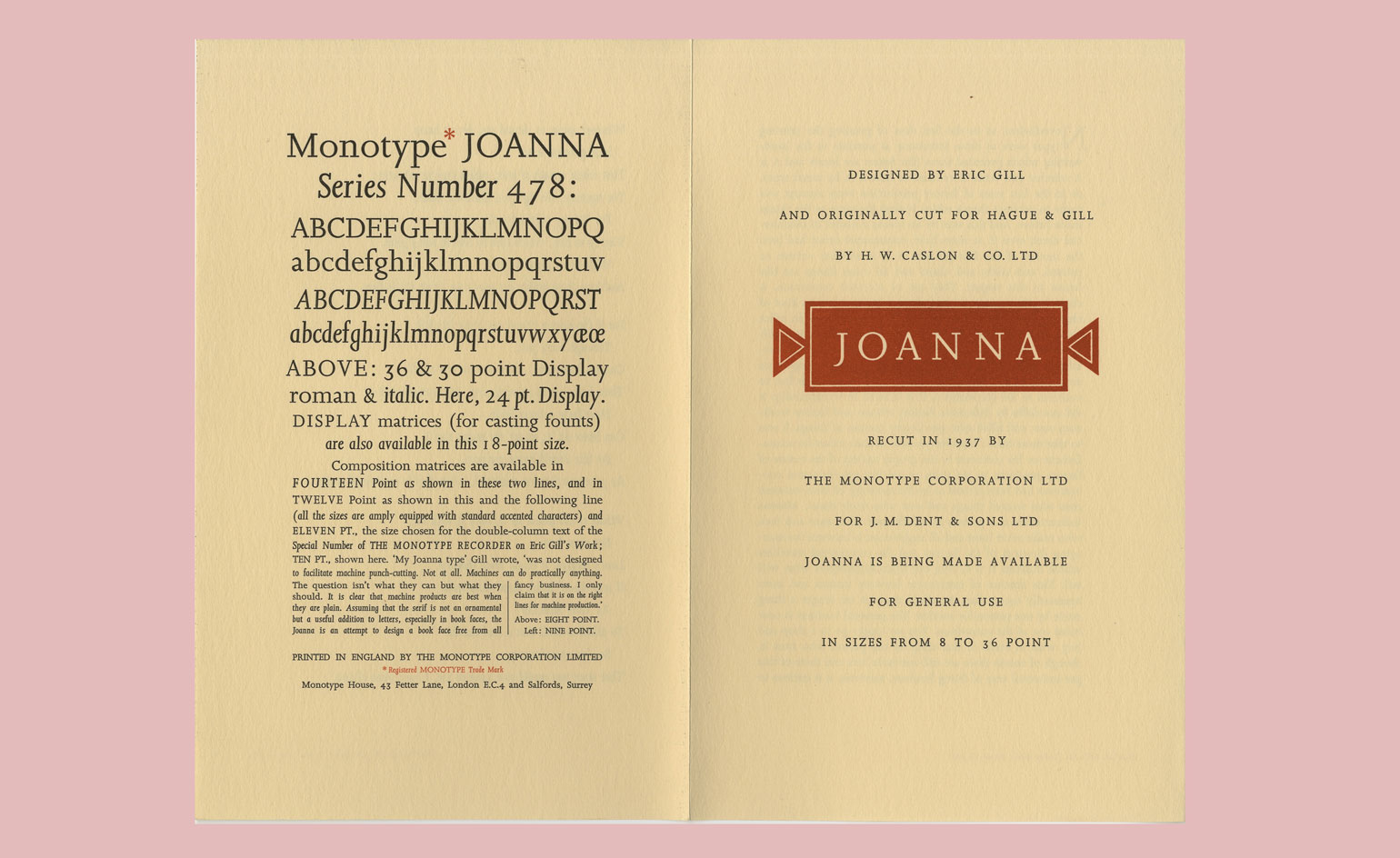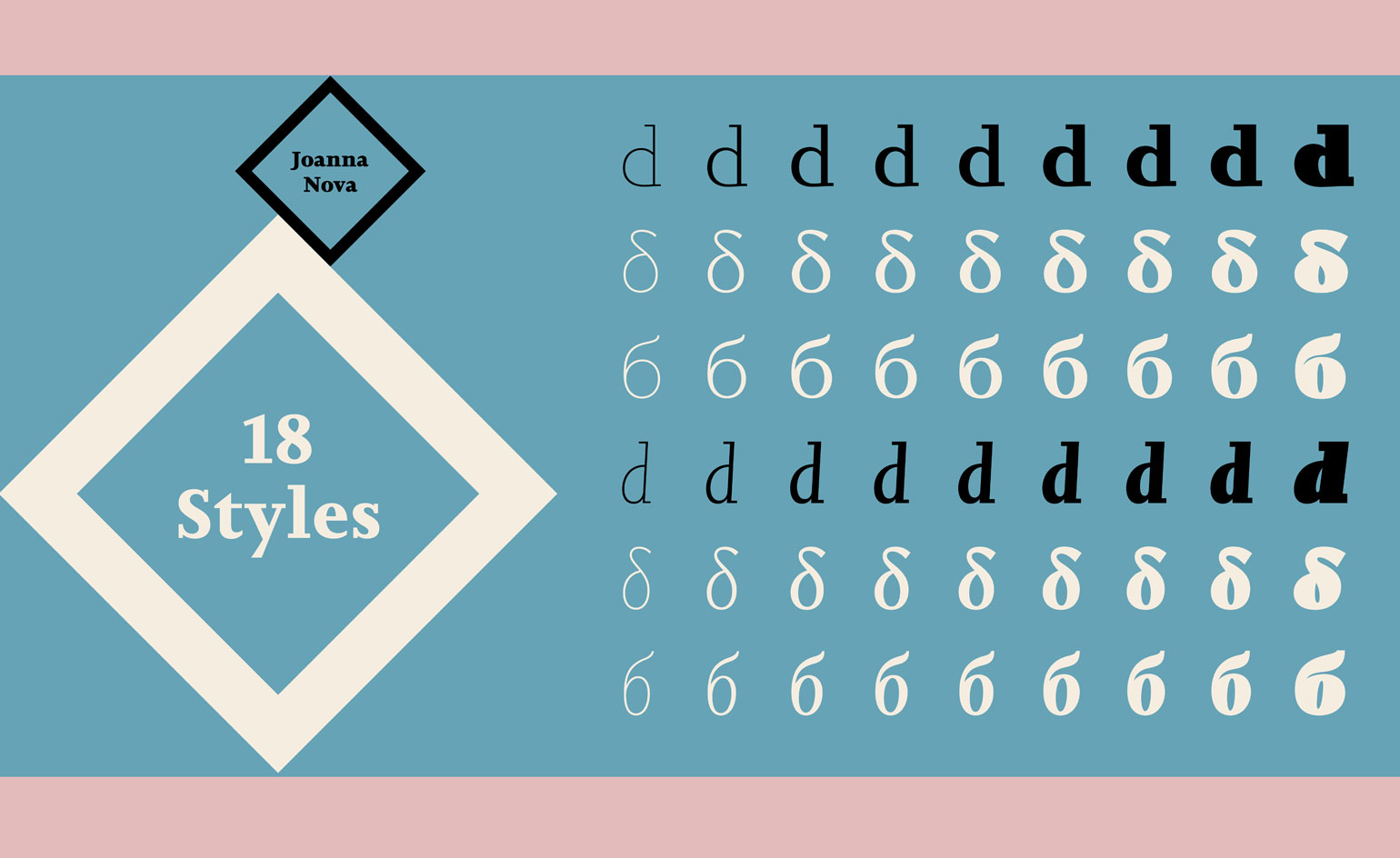
A marked legacy: Monotype looks back at the work of Eric Gill
Monotype is staging a week-long celebration of Eric Gill and his most legendary works. Gill started working on Gill Sans in 1927 and produced Joanna a few years later, in 1930; both fonts have been since adopted by Monotype, which has continuously been adapting them to contemporary typographic needs, from different alphabets to new currency symbols, as well as use on digital platforms.
The legacy of British designer and sculptor Eric Gill is more than marked by the shocking posthumous revelations in his private life. Despite this – and the subsequent calls to have his work removed from public view – the fact remains that Gill was an artist of great talent, whose work in typeface creation was hugely influential to the discipline, ubiquitously employed across publishing and design industries to this day.
Given this, Monotype is staging a week-long celebration of Gill and his most legendary works. Gill started working on Gill Sans in 1927 and produced Joanna a few years later, in 1930; both fonts have been since adopted by Monotype, which has continuously been adapting them to contemporary typographic needs, from different alphabets to new currency symbols, as well as for use on digital platforms.
With a background as a sculptor, carver and calligrapher, Gill had a particular sensibility for light and shadow, apparent in his typographic work. He and Monotype developed a long relationship, and the American company acquired several of his fonts, which he often created and updated in collaboration with the commercial team there. ‘Gill Sans is evidence of the company’s strong relationship with Eric Gill,’ says Dan Rhatigan, a consultant on the Gill Series project and former type director at Monotype.
On display in the exhibition – curated by James Fooks-Bale, Monotype's creative director – is an array of materials that inspired the development of Gill’s typefaces, as well as documents that explore his fonts' histories and eventful development.
The show also serves as the announcement of a series of new fonts that continue Gill’s legacy. Over 75 new fonts have been introduced in the Monotype library, the most comprehensive update to the Gill Sans and Joanna families yet. Gill Sans Nova, Joanna Nova and Joanna Sans Nova will be available immediately from Monotype. Four designers collaborated over the course of over two years to develop contemporary styles that are true to the typographer’s original intentions. Adjustments of the fonts include an increased palette of weights, making them better suited to digital use, and a Sans version of Joanna, which didn’t exist before. ‘The [Joanna] font has such a vast library and heritage,’ says Terrance Weinzierl, one of the designers tasked with the new project. ‘What we asked ourselves was: how do we contribute to that in a meaningful way?’ The resulting design balances simplicity, beauty and usability, but also maintains Gill’s initial aesthetic character.
‘Gill’s mastery of light and dark spaces is what made his typefaces so good,’ said Steve Matteson, the company’s creative type director. ‘Our work with the [Eric Gill] series spotlights the role Monotype continuously plays with respect [to] the past, present and future of type, where we have the unique ability to revive legacy designs with new weights, characters and languages.'
The exhibition, and the subsequent commercial release of the three typefaces, is an important step in a conversation that brings type history to life.
In this 2012 proof, we see how Joanna Sans Nova – an updated version of the seminal typeface – plays on formal cues from both Gill Sans and Joanna to become something entirely new
This original 10-inch production drawing shows how many different styles could be made from the outlines drawn on a single, simple sheet
Details of Gills Sans, which Gill started working on in 1927, displaying his particular sensibility towards light and shadow
Pictured: Monotype Newsletter No. 56, 1958, which presented the Joanna typeface to the public for the first time
The exhibition includes intimate sketches, drafts and ideas from Gill, spotlighting the continuing role his creations have played in the development of contemporary type
Seventy-five new fonts have been anounced by Monotype in conjunction with the exhibition, including Gill Sans Nova, Joanna Nova and Joanna Sans Nova
The ’Gill Series’ exhibition not only serves to celebrate the man’s work, but also brings the history of the discipline to life